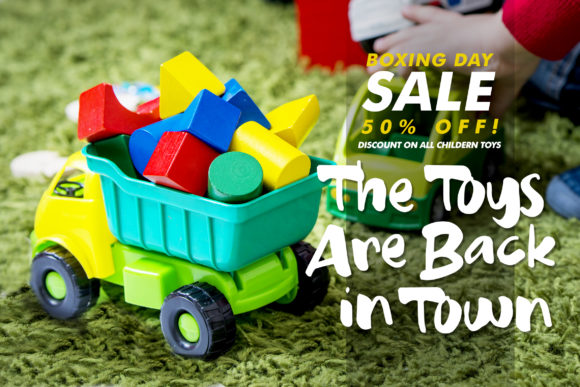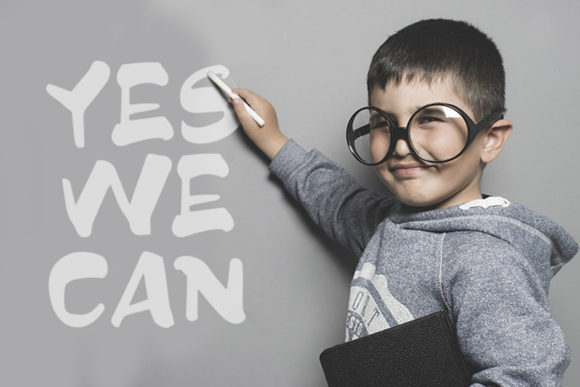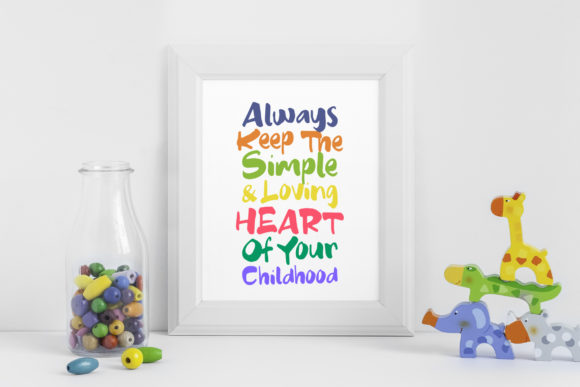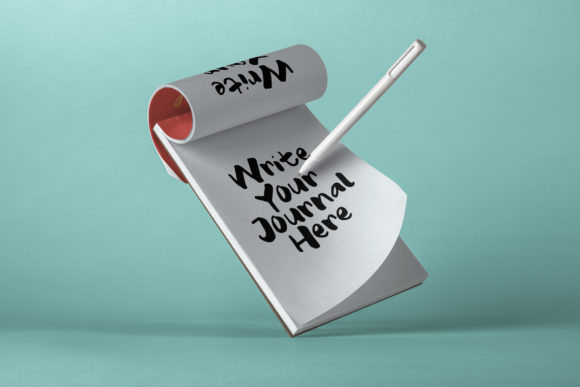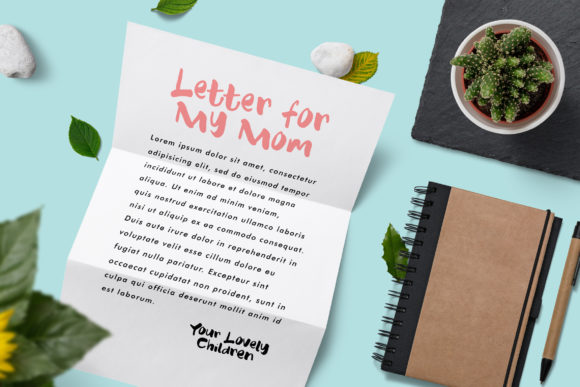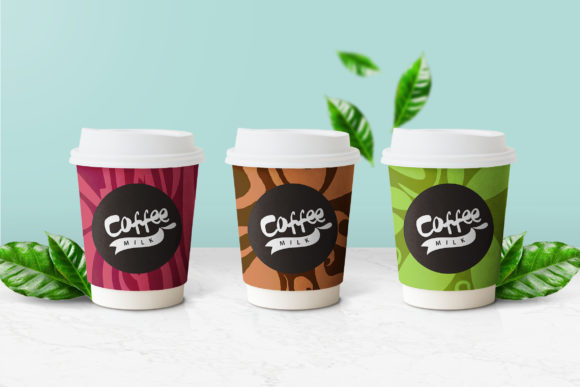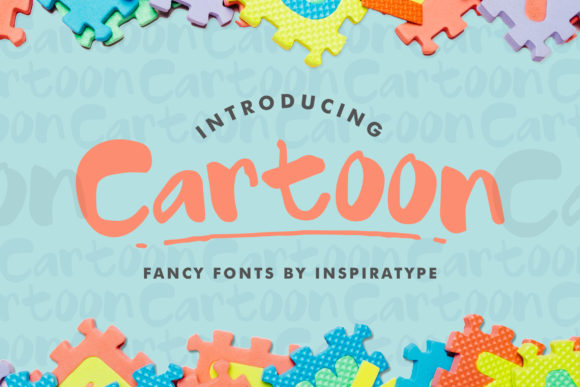
Introducing Cartoon Font: The Whimsical Twist Your Designs Need
Are you tired of using the same old fonts in your design projects? Do you want to add a touch of fun and playfulness to your creations? Look no further than Cartoon Font, a delightful display font that’s sure to bring a smile to your face. With its whimsical twist and beautiful charm, Cartoon Font is the perfect way to make your designs stand out from the crowd.
The Story Behind Cartoon Font
Cartoon Font is a carefully crafted typeface that’s designed to evoke the feeling of classic cartoons. Its creators wanted to bring a sense of nostalgia and playfulness to the world of typography, and they’ve succeeded in creating a font that’s both fun and functional. Whether you’re working on a design project for a children’s book, a cartoon, or a craft project, Cartoon Font is the perfect choice.
What Makes Cartoon Font So Special?
So, what sets Cartoon Font apart from other fonts out there? Here are just a few of its unique features:
• Whimsical design: Cartoon Font has a distinctly playful feel, with irregular shapes and a carefree attitude.
• Beautiful charm: The font has a certain je ne sais quoi that makes it instantly appealing and engaging.
• Highly versatile: Cartoon Font can be used in a wide range of design projects, from posters and flyers to digital graphics and crafts.
• Easily readable: Despite its playful nature, Cartoon Font is still easy to read, making it perfect for use in titles, headings, and other display text.
How to Use Cartoon Font in Your Design Projects
Cartoon Font is incredibly easy to use, and it can add a touch of magic to any design project. Here are a few ideas to get you started:
• Children’s book titles: Use Cartoon Font to create eye-catching titles for your children’s book, and bring the story to life.
• Cartoon and comic book art: Add a touch of authenticity to your cartoon or comic book art with Cartoon Font, the perfect choice for speech bubbles and captions.
• Craft projects: Use Cartoon Font to add a playful touch to your craft projects, such as handmade cards, gift tags, and scrapbook pages.
• Posters and flyers: Make your posters and flyers stand out with Cartoon Font, and grab the attention of your audience.
Tips for Getting the Most Out of Cartoon Font
Here are a few tips to help you get the most out of Cartoon Font:
• Experiment with colors: Cartoon Font looks great in a wide range of colors, so don’t be afraid to try out different combinations and see what works best for your project.
• Play with sizes: Cartoon Font can be used at a variety of sizes, from small captions to large display text. Experiment with different sizes to find the one that works best for your project.
• Mix and match: Don’t be afraid to combine Cartoon Font with other fonts to create a unique and eye-catching effect.